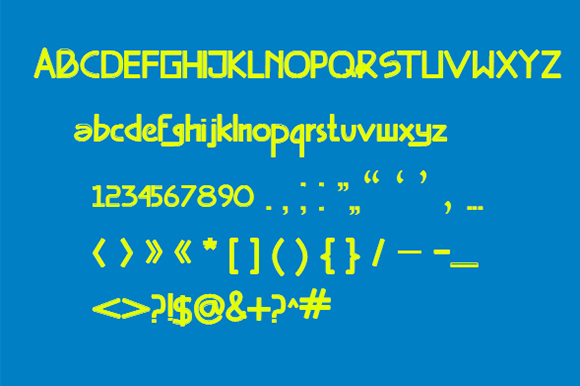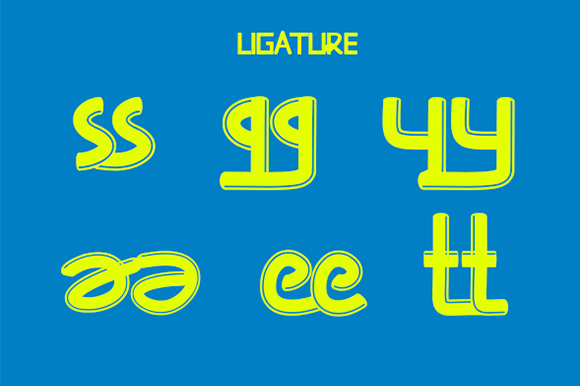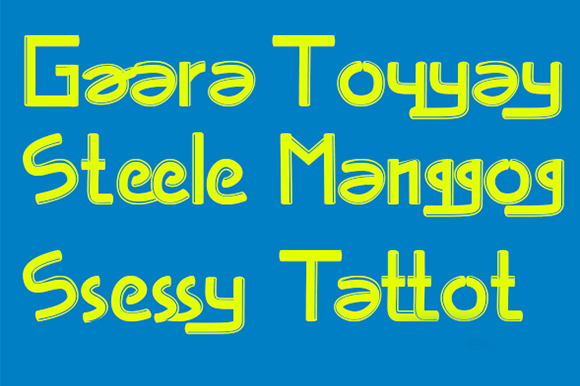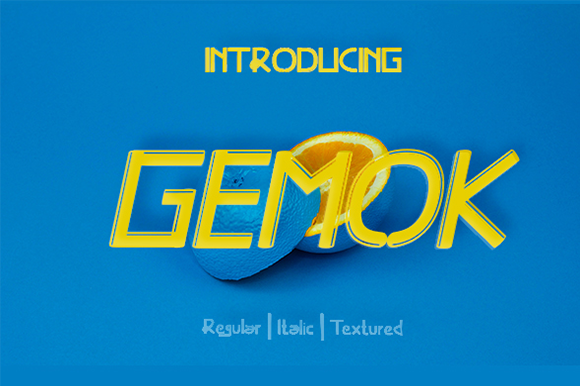
Introduction to Gemok Font
Gemok is a simple and authentic display font.
It is suitable for any branding, product packaging, quote, t-shirt, label, poster, logo that you wish to develop .
Key Features of Gemok Font